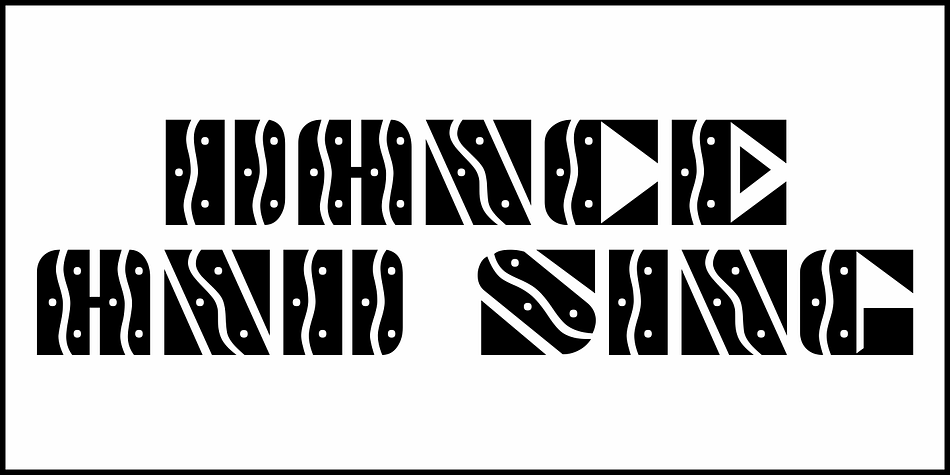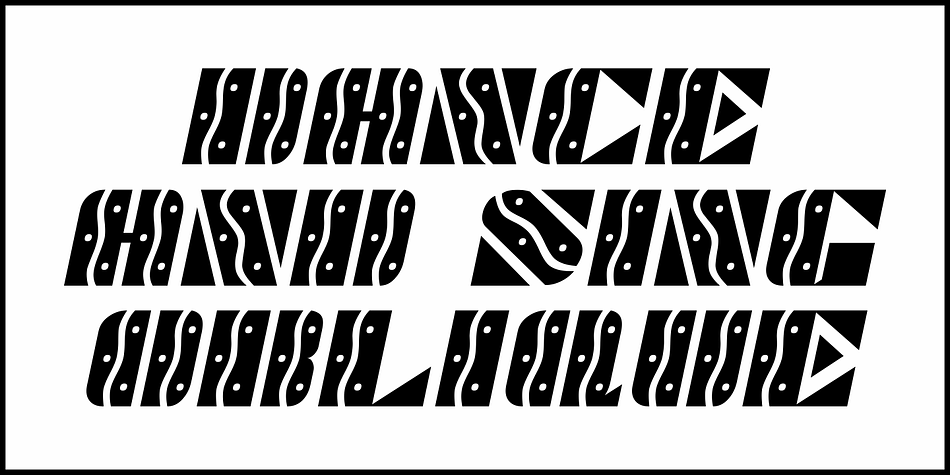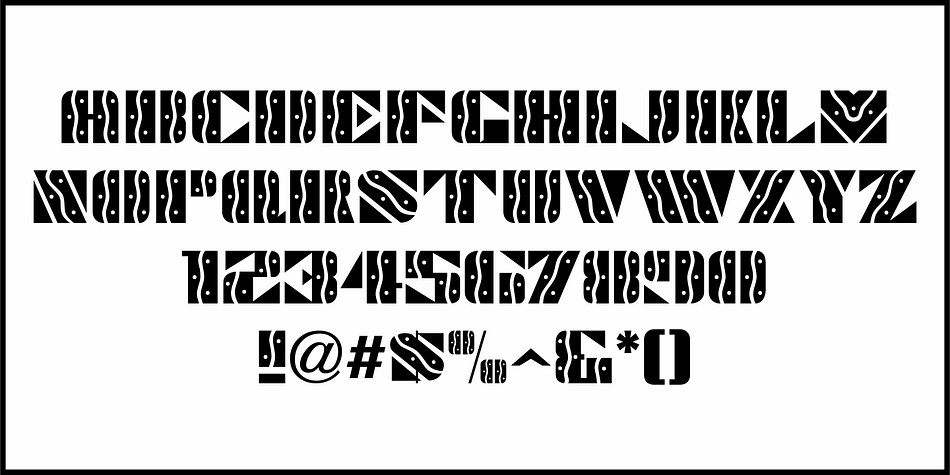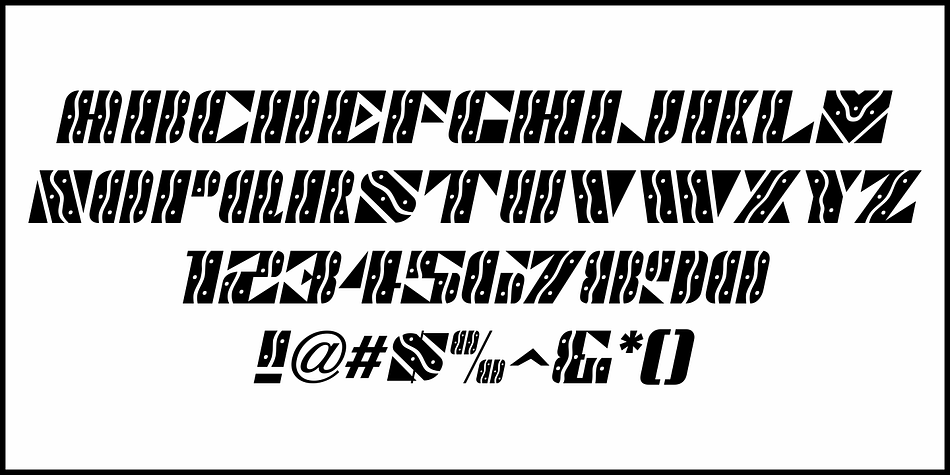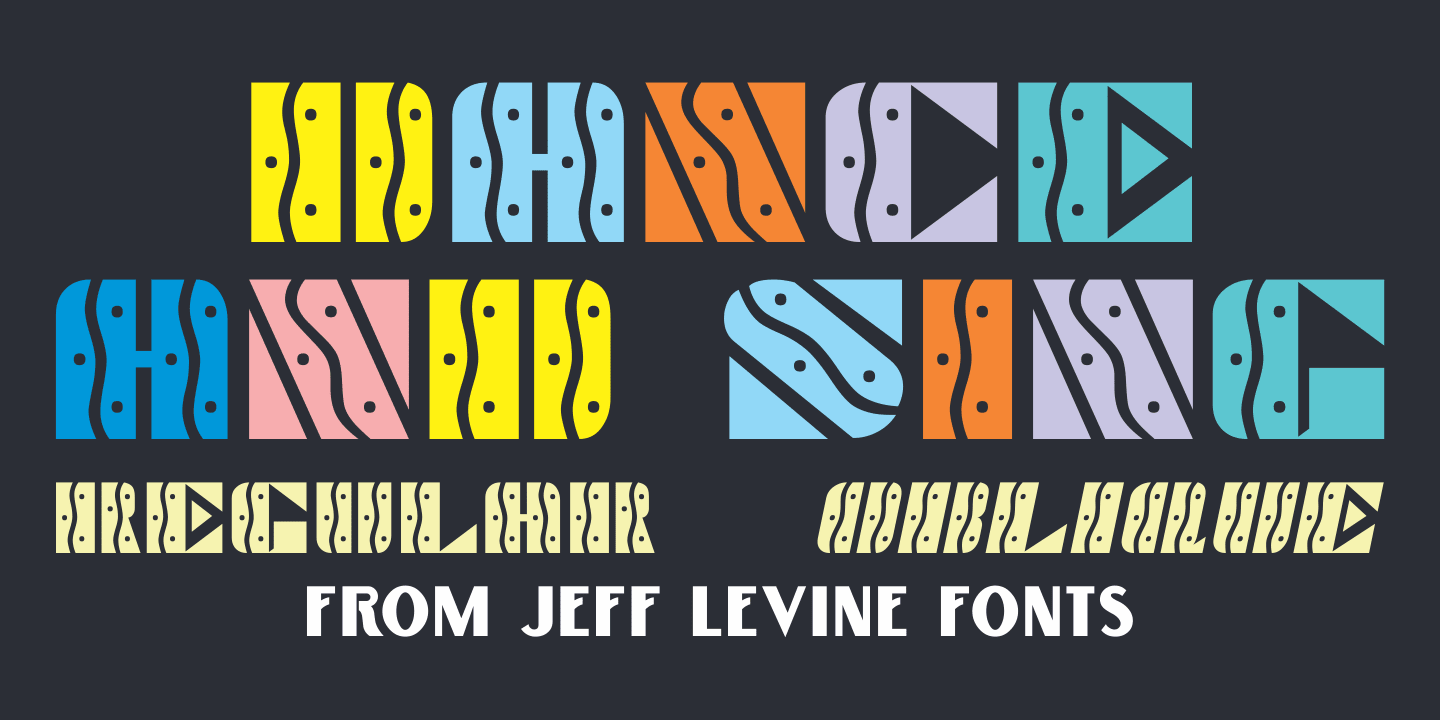
DANCE AND SING JNL
Designed by Jeff Levine, Dance and Sing JNL is a display font family. This typeface has two styles and was published by Jeff Levine Fonts.
A 1932 fan magazine from Spain entitled “Films Selectos” (“Select Films”) had those words hand lettered in a decorative Art Deco type style that was a cross between the “Futura Black” style of stencil influenced display lettering and “Fiesta” lettering.
This hybrid design is now available digitally as Dance and Sing JNL in both regular and oblique versions.